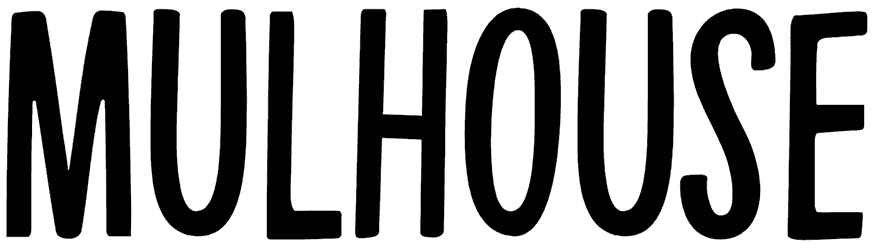
Mulhouse Font
Mulhouse, in all of its simplicity, has a little bit of a friendly feeling and can do a minimal makeover to your texts. This sans serif font has a semi-bold design on its long characters.
You can use this font for any business and product titles, advertisements, books, and channel banners, and honestly, it would look good on anything! This font lacks some characters in the numeral section and doesn’t have any lowercase.